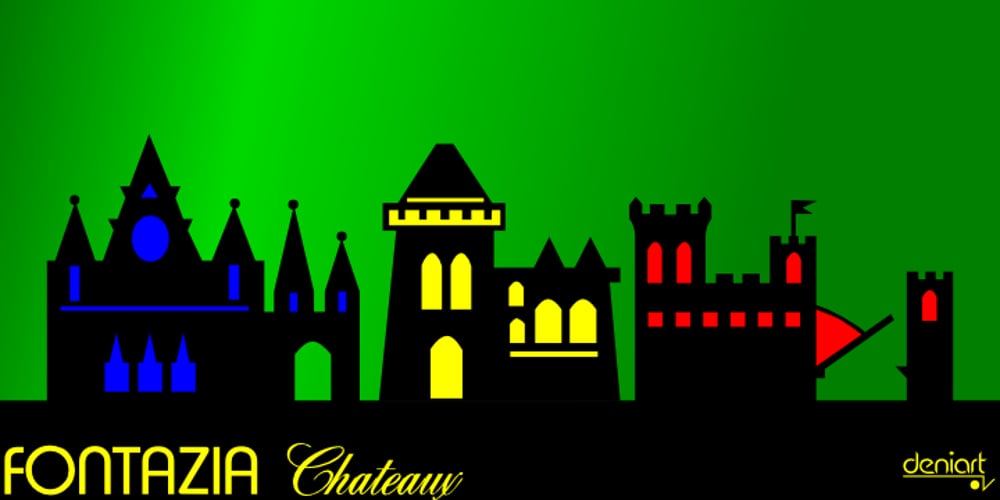
Fontazia Chateaux
Fontazia Chateaux font
Fontazia Chateaux Font Family was designed by Denise Koehler and published by Deniart Systems. Fontazia Chateaux contains 1 styles and family package options. The Fontazia Chateaux series features a unique assortment of characters inspired by some of the great castles and chateaus of Europe and beyond. These simple yet elegant symbols are delivered to you in both silhouette and outline format. For more in the Chateaux series, see also Fontazia Chateaux Deux.